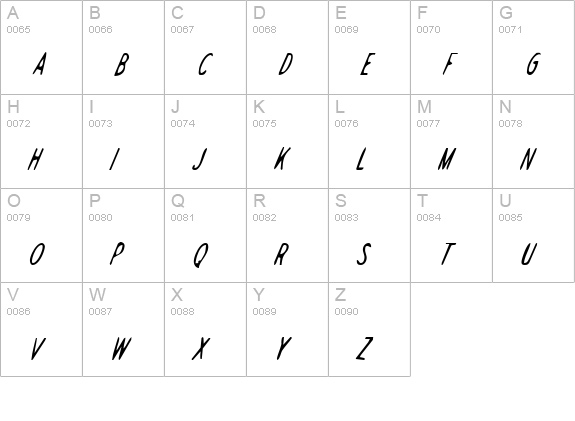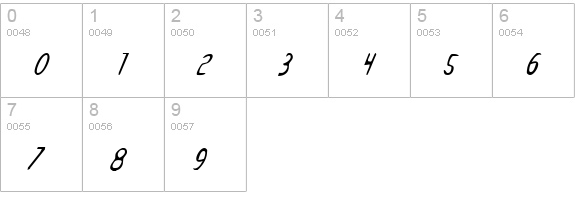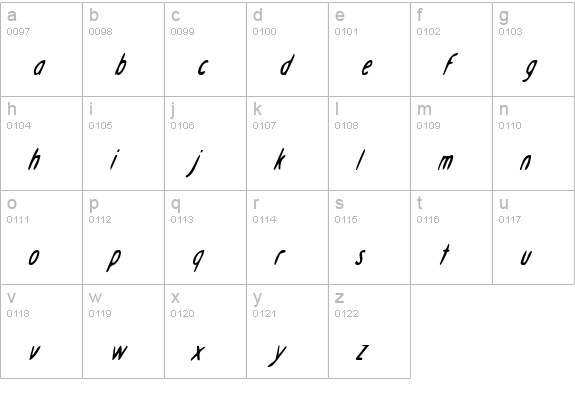
Drafting Table CondItalic font is a sleek and modern typeface that combines elegance with a touch of creativity. Its italic style adds a dynamic flair to any design project, making it perfect for headings, quotes, and other attention-grabbing text. The clean lines and sharp angles of this font give it a professional and sophisticated look that is sure to make your work stand out. Best of all, Drafting Table CondItalic font is available for free download at FontsMarket.com. This means you can add this stylish typeface to your collection without any cost, making it a valuable resource for designers, artists, and creatives of all kinds. Don't miss out on the opportunity to enhance your projects with the unique charm of Drafting Table CondItalic font – download it today and let your creativity shine!